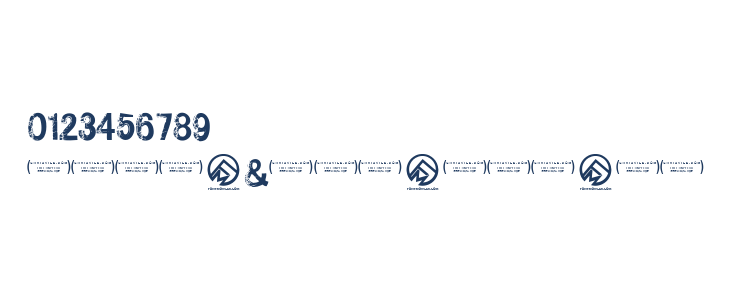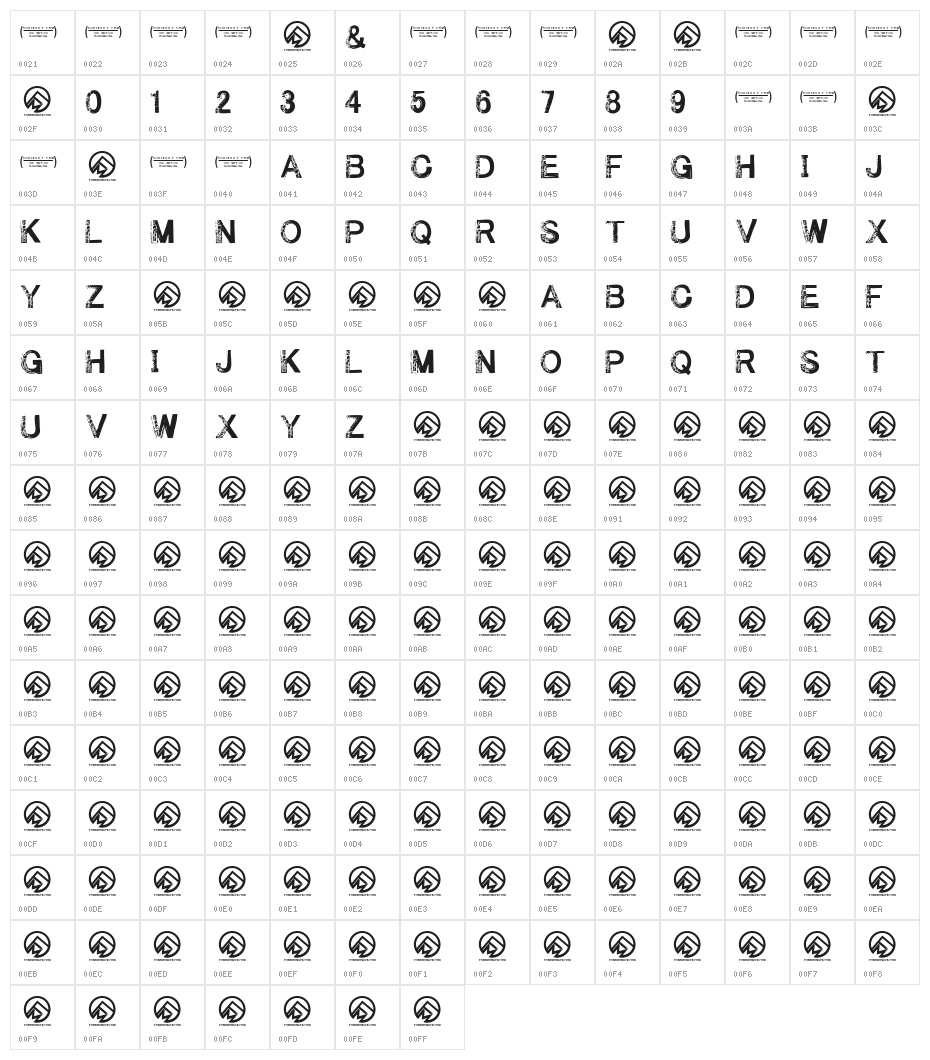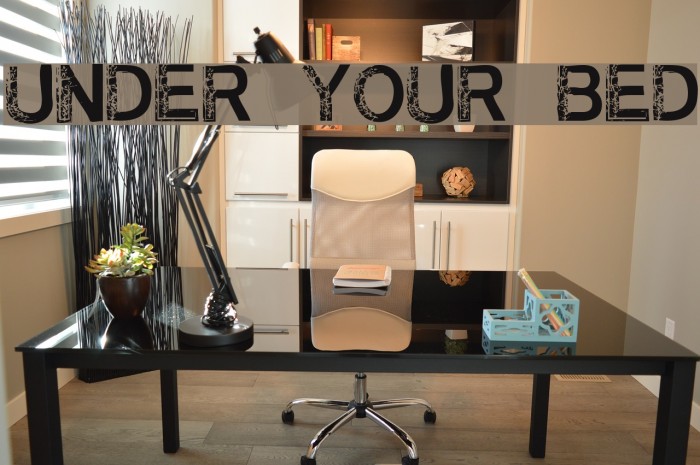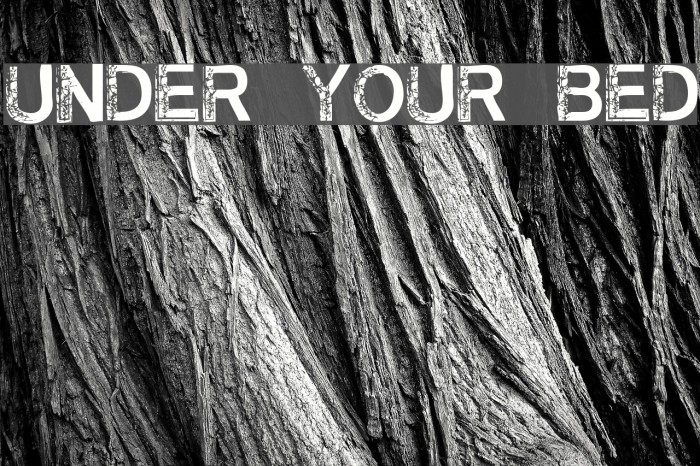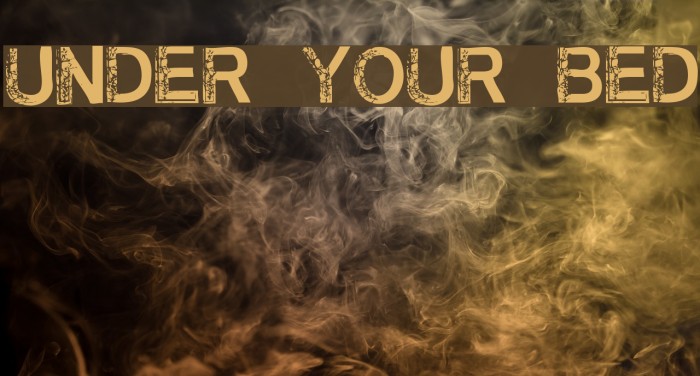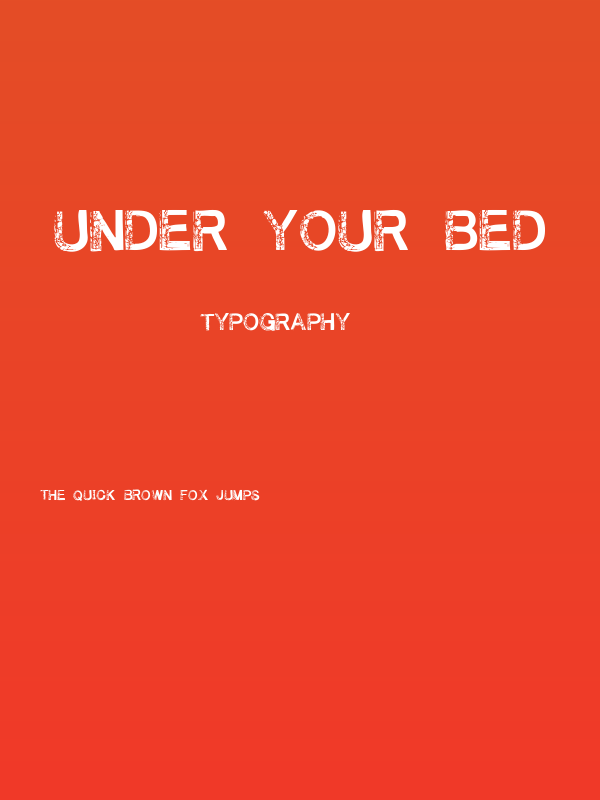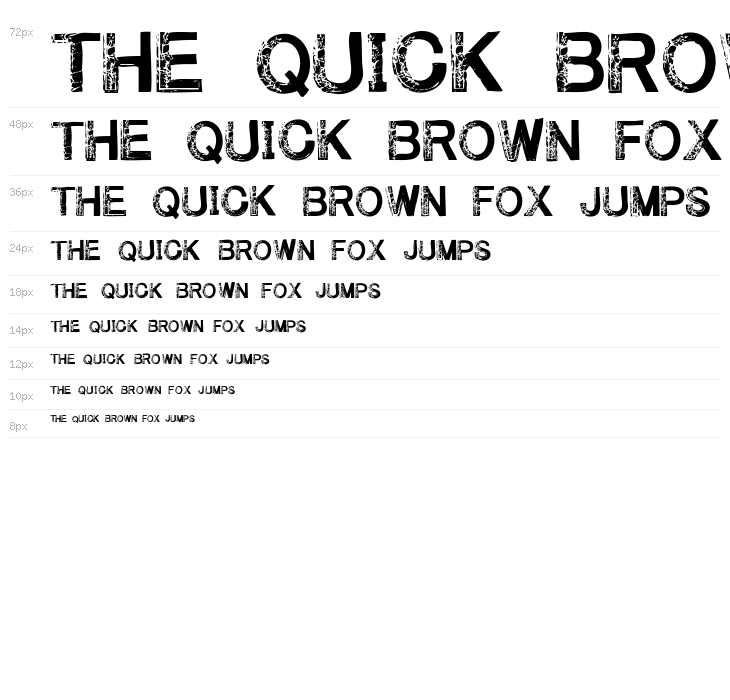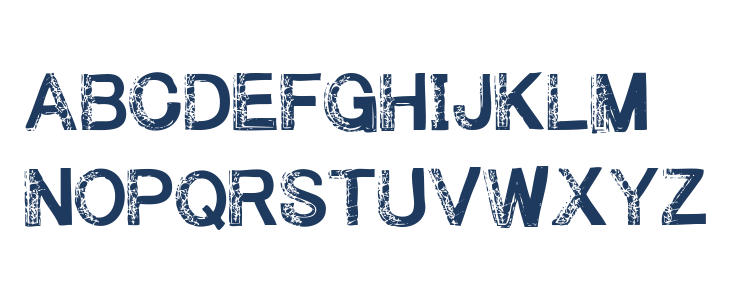
Under Your Bed Font
Under Your Bed Description
This font features a distressed, grunge style with a bold and impactful appearance. Each character is designed with a textured, worn-out effect that gives it a rugged and edgy look. The uppercase and lowercase letters maintain a consistent design, with the numbers and special characters following the same aesthetic. The font's boldness and unique texture make it stand out, ideal for projects that require a strong visual impact. Its rough edges and uneven strokes contribute to its distinctive character, making it suitable for creative and artistic designs.
| Overall Style | Grunge, Edgy, Artistic |
| Proposed Projects | Ideal for posters, album covers, branding for edgy products, and any design needing a bold, gritty aesthetic. |